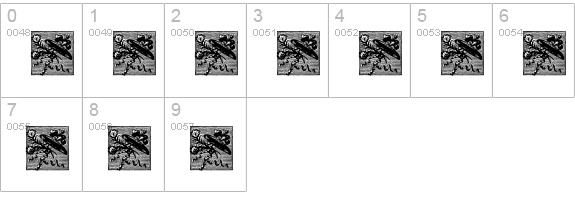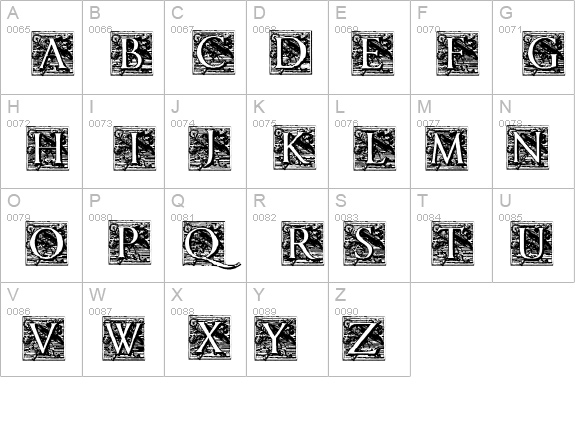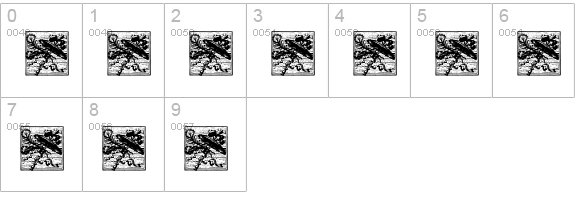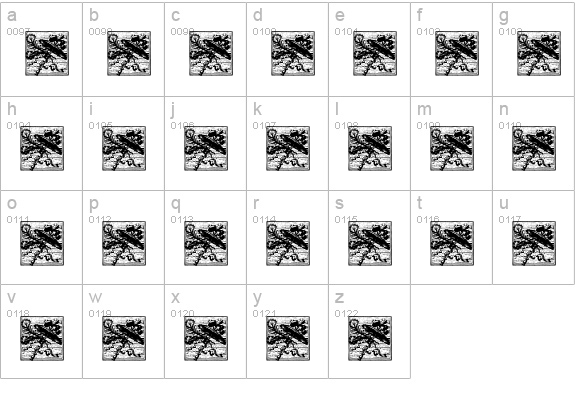
PompadourInitials Font Details
PompadourInitials font is a stylish and elegant typeface that exudes sophistication and charm. Its intricate details and vintage-inspired design make it perfect for adding a touch of class to your projects. The ornate swirls and flourishes of this font give it a timeless appeal that will elevate any design to new heights. Best of all, PompadourInitials font is completely free to download at FontsMarket.com. This means you can add a touch of luxury to your projects without breaking the bank. Whether you're working on wedding invitations, branding materials, or any other design project, PompadourInitials font is sure to make a lasting impression. Download this exquisite font today and bring a touch of elegance to your creations.